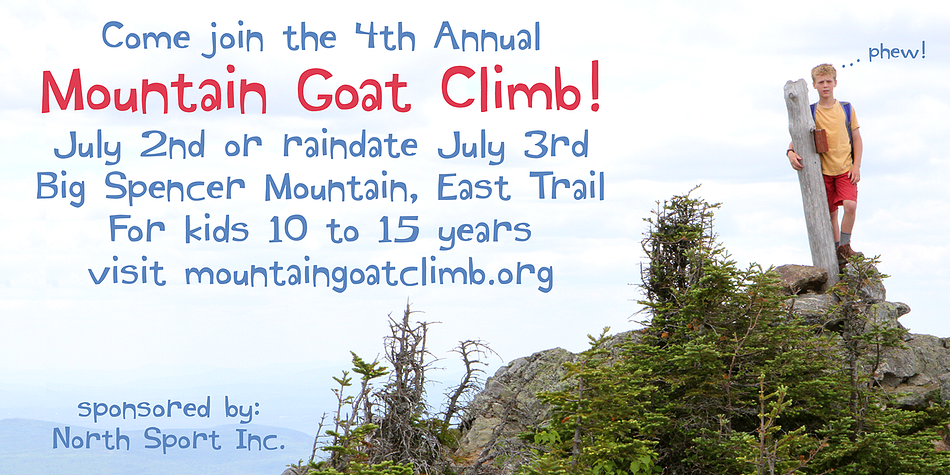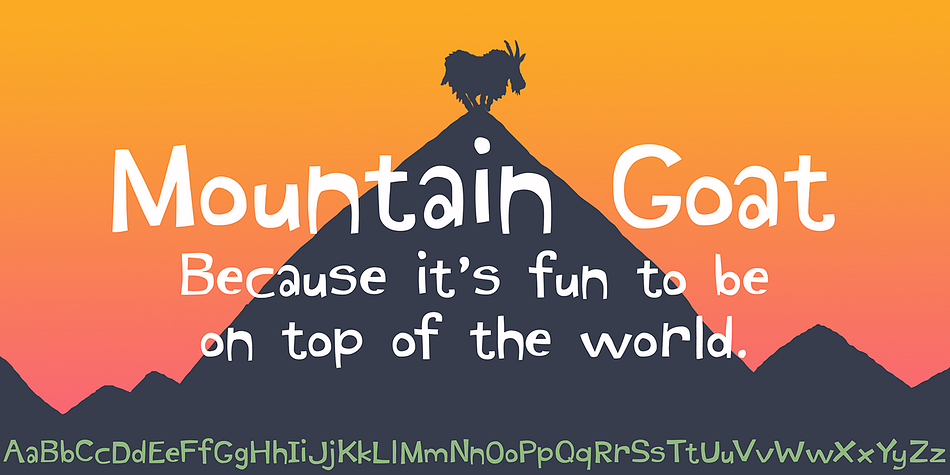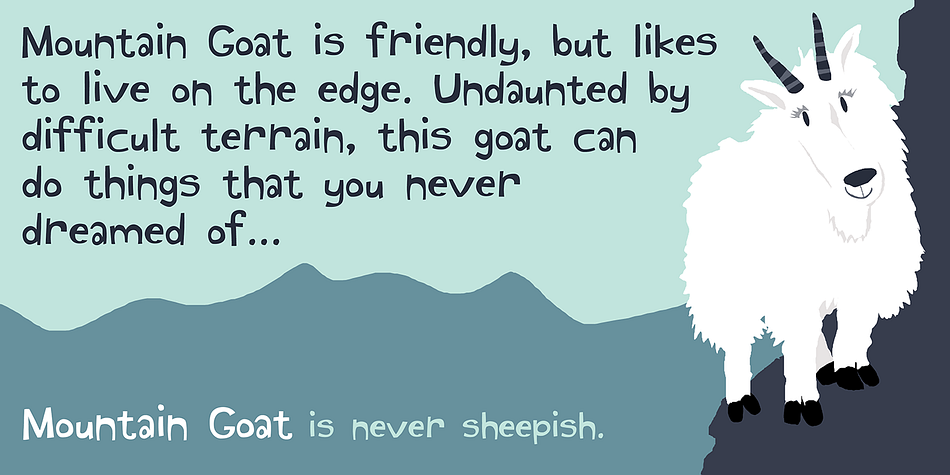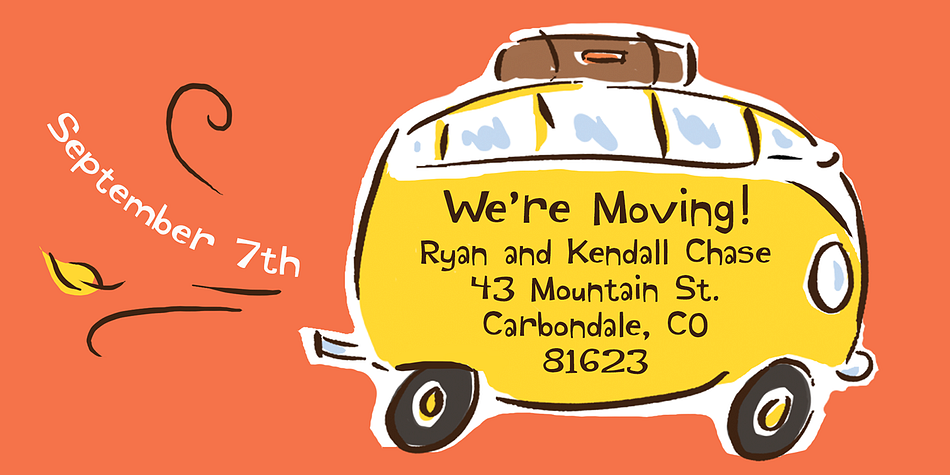
Designed by Ken Russell, Mountain Goat is a display, hand drawn and kids font published by Atlantic Fonts.
Mountain Goat is friendly but likes to live on the edge. Undaunted by difficult terrain, this goat can do things you never dreamed of…
P.S. Mountain Goat is never sheepish.